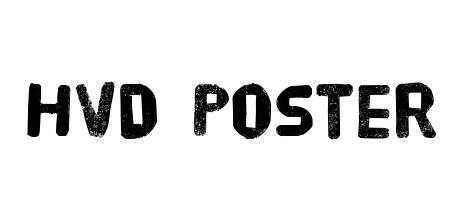
HVD Poster
By HvD Fonts
HVD Poster is a bold, sans-serif typeface with a distinct hand-carved, almost stamped quality. Its chunky letterforms possess a slightly rough, textured surface, giving it a gritty, vintage feel. The sharp edges and consistent weight add a touch of raw, industrial strength to its design. It's perfect for headlines that need a strong, attention-grabbing presence.